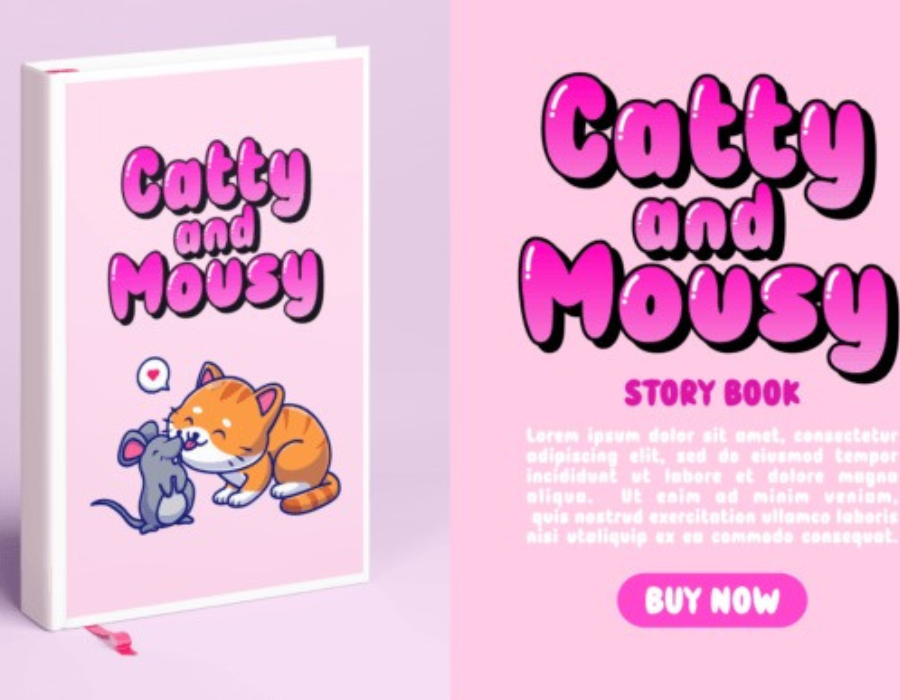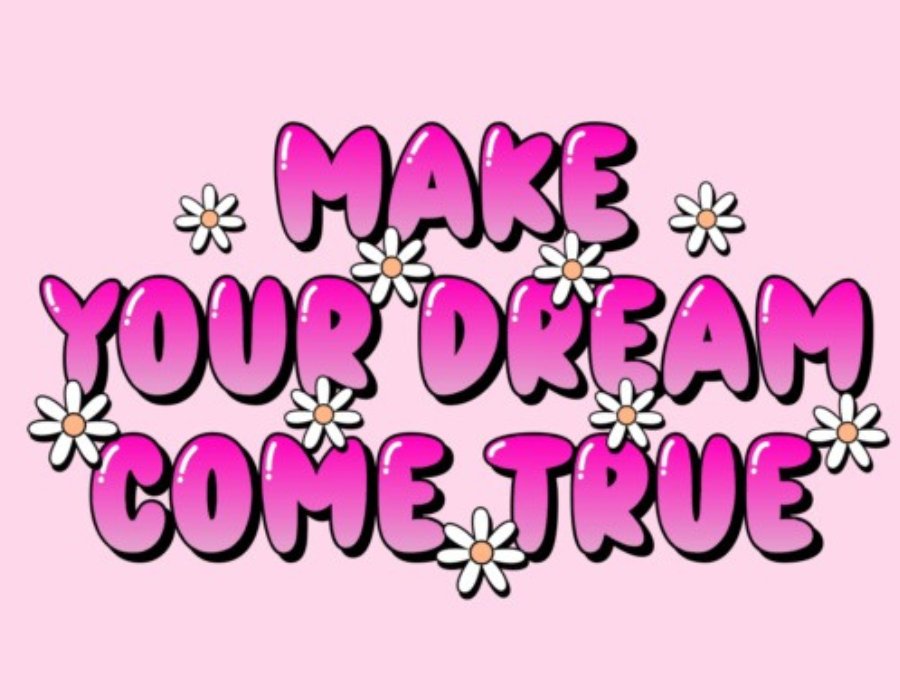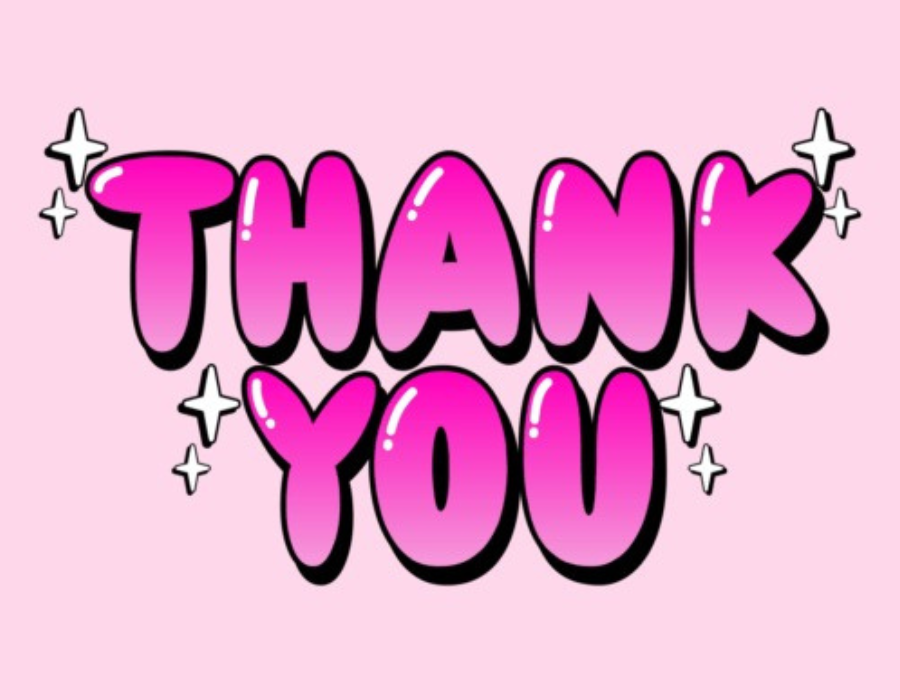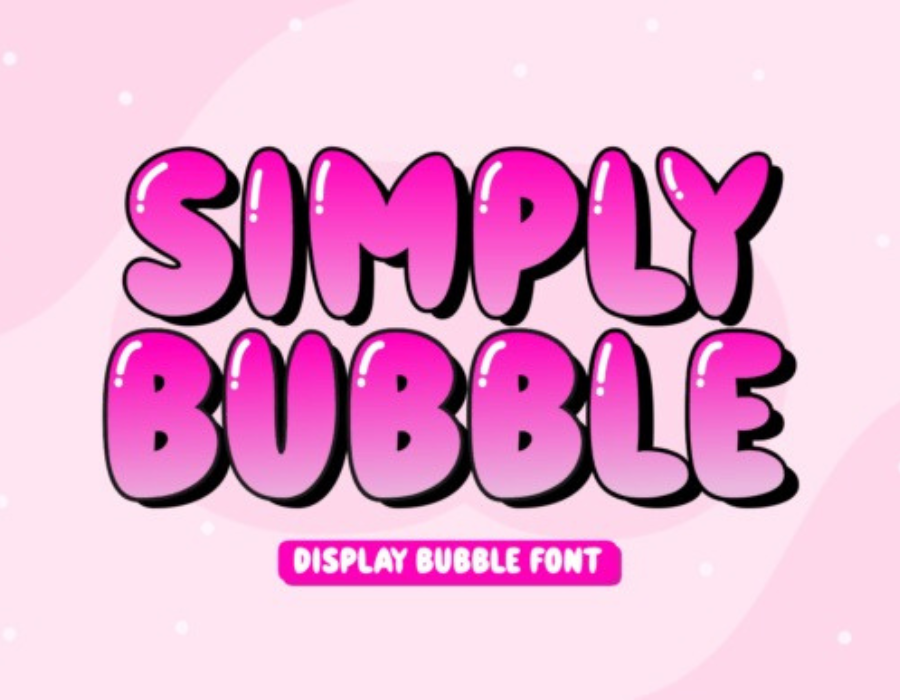
Simply Bubble Font: A Soft and Playful Typeface for Joyful Expression and Modern Design
In the vast world of typography where boldness, functionality, and elegance often dominate, there exists a delightful space for lightheartedness, charm, and whimsical beauty. The Simply Bubble Font proudly occupies that space—offering designers a font that is as playful as it is polished, as inviting as it is impactful. With its round contours, gentle curves, and clean design language, Simply Bubble Font captures the essence of simplicity infused with bubbly delight.
From children’s storybooks to lifestyle branding, greeting cards to digital stickers, this font brings a sense of cheerful softness and emotional warmth to every project it touches. It’s not just a typeface—it’s an expression of personality, designed to uplift and engage.
Aesthetic Identity and Visual Construction
At its core, Simply Bubble Font is defined by plump, rounded letterforms, moderate weight, and a clean yet soft outline. Each glyph feels inflated and smooth, like it’s been sculpted out of soap bubbles or marshmallows. The even spacing, consistent curvature, and balanced proportions give it a harmonious visual rhythm, making it ideal for both decorative and legible applications.
There’s an understated elegance in its simplicity. Unlike more ornamental bubble fonts that might rely on wild outlines or irregular proportions, Simply Bubble retains a neat structure. The geometry is intentional: circular O’s, pillow loops in lowercase g’s and e’s, and subtle ascender curves that lend a hand-drawn friendliness without going too far into cartoonish territory.
Key Visual Features:
Rounded Terminals for a soft, comforting aesthetic
Generous Letter Spacing to improve readability
Consistent Stroke Width for modern cleanliness
Smooth Outline Quality, making it ideal for high-resolution print and digital use
Its balance between whimsical charm and minimalist cleanliness makes it one of the most versatile bubble-style fonts available.
Emotional Tone and Audience Appeal
Fonts are not merely carriers of words—they evoke feelings. They tell stories through shape, style, and tone. Simply Bubble Font communicates happiness, friendliness, and uncomplicated joy. It feels youthful, but not immature. Lighthearted, but not unserious.
This emotional quality makes it particularly appealing to:
Children and Parents: It’s perfect for kids’ content that needs to be cute and readable.
Young Adults and Teens: The aesthetic aligns with soft pop culture, lifestyle products, and social media trends.
Modern Brands: Wellness, boutique, or eco-conscious brands seeking a soft visual identity.
Whether it’s used for a playful birthday invitation or a trendy skincare brand’s packaging, the font speaks with an approachable and sincere voice.
Versatile Applications Across Design Fields
The true strength of Simply Bubble Font lies in its flexibility across multiple creative industries. It easily adapts to diverse styles and themes while retaining its personality. Let’s explore the practical scenarios where this font shines:
1. Children’s Books & Educational Materials
With its smooth curves and high legibility, the font is a top choice for storybooks, alphabet posters, flashcards, or kids’ mobile apps. It makes learning fun and visually appealing.
2. Greeting Cards & Stationery
From “Thank You” notes to birthday wishes, Simply Bubble adds a personal and warm touch to printed materials. It pairs especially well with pastel illustrations, floral motifs, and watercolor designs.
3. Branding and Packaging
Ideal for soft product categories like bath products, snacks, candles, organic teas, baby items, or handcrafted soaps. The font signals friendliness and sincerity—qualities consumers love.
4. Social Media and Digital Graphics
Content creators on platforms like Instagram, Pinterest, and YouTube use this font in thumbnails, story covers, product launches, or inspirational quotes. Its pop-friendly look captures attention instantly.
5. Event Promotion
Perfect for festivals, community events, pop-up markets, and school activities. It provides a sense of excitement without overwhelming the viewer.
Technical Features and Digital Performance
Designed with modern users in mind, Simply Bubble Font goes beyond surface-level aesthetics and offers a well-built typographic structure with advanced features:
OpenType Support: Includes stylistic alternates, ligatures, and special glyphs for creative flair.
Multilingual Support: Accented characters for European languages, including French, Spanish, German, and Portuguese.
Optimized for Print and Screen: Whether used in 300dpi packaging or mobile app UIs, it maintains visual clarity and smoothness.
Whether you are designing for a toddler’s classroom, a cozy boutique, a YouTube channel, or a seasonal gift line, this font delivers clarity, cuteness, and charisma all in one. It’s a delightful reminder that simplicity can be powerful—and that sometimes, the best way to communicate is to do it with a bubble of joy.
So go ahead—add some puff, some pop, and some playful charm to your next project with Simply Bubble Font.